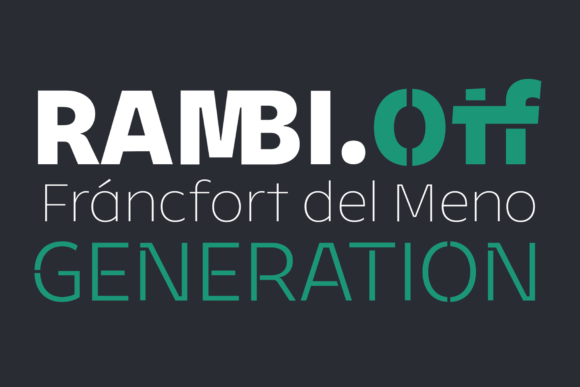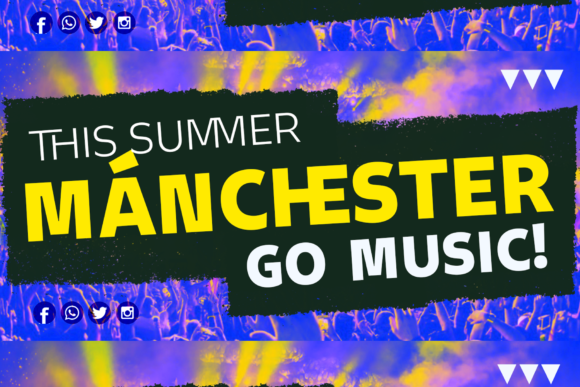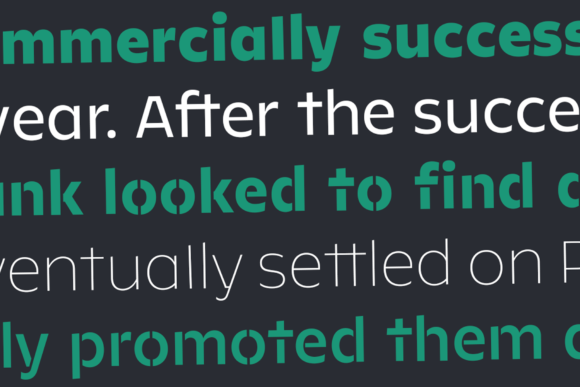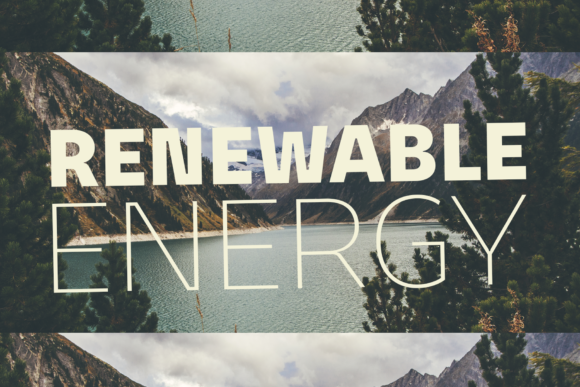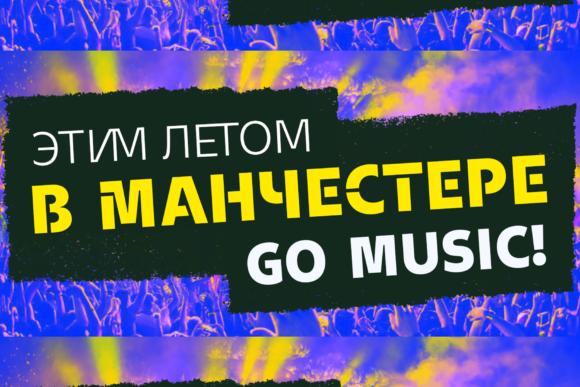
Introduction to Meche Pro Font
Meche Pro is a geometric typeface with a semi-formal touch.
No matter the topic, this display font will be an incredible asset to your fontsโ library, as it has the potential to elevate any creation .
Key Features of Meche Pro Font
Why Choose Meche Pro Font?